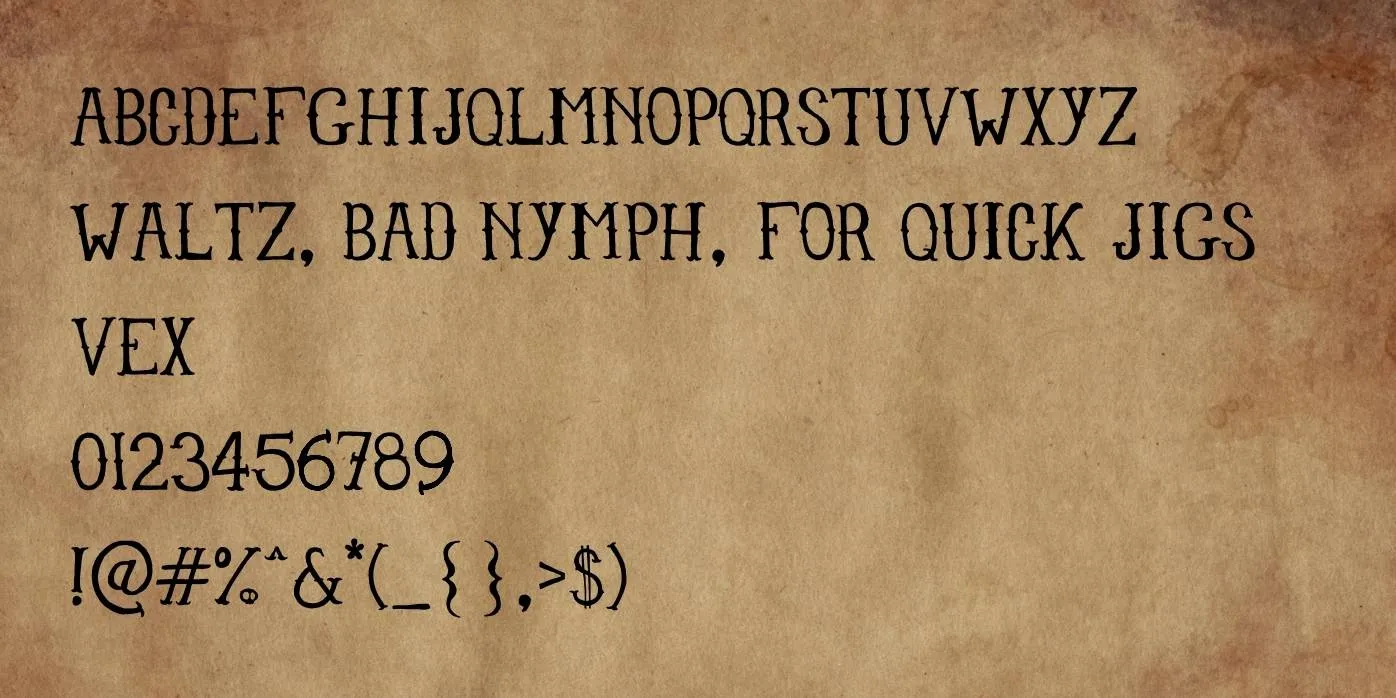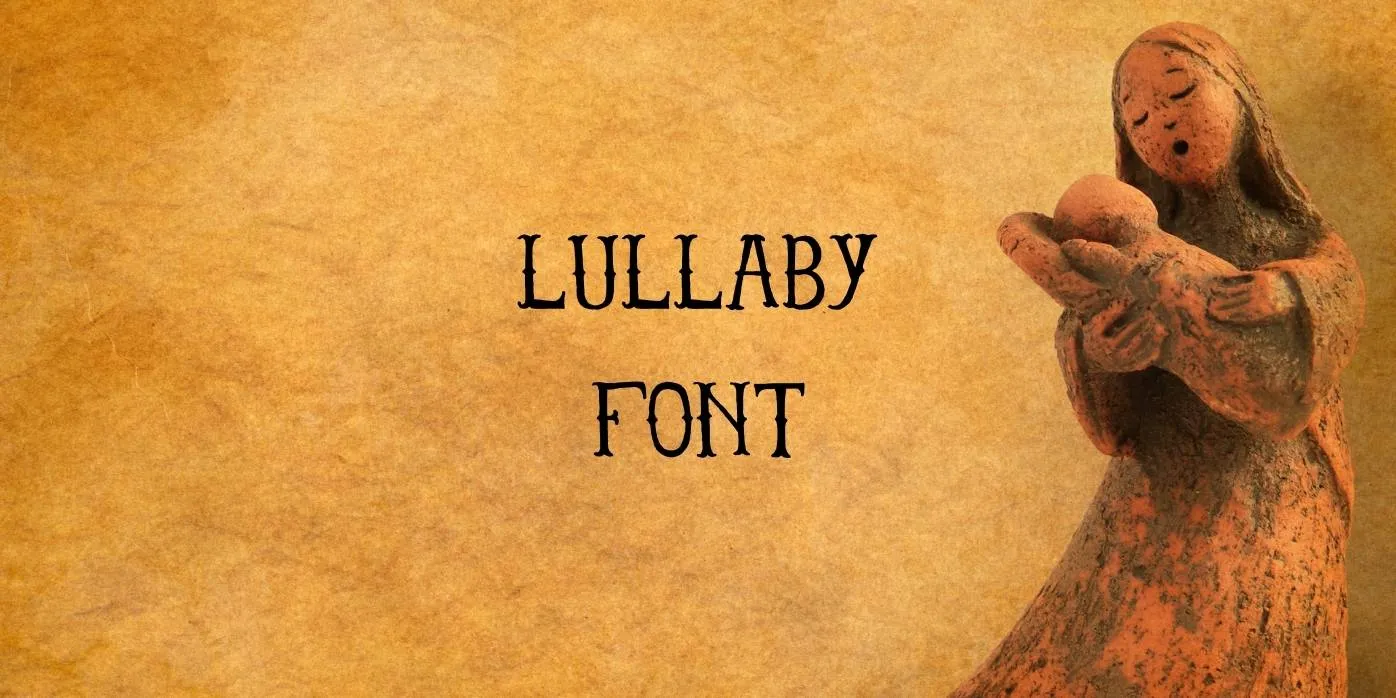
Lullaby Font
Lullaby font is a Retro typeface font designed by Gravual. This typeface contains many stylish glyphs and characters. This typeface is the very ideal and necessary font in the fonts market. majority of designers use this font in their design.
It has very bold strokes and sharp edges that look so astonishing in any design. If you are looking for a font that is very aesthetic and simple so this font is best for you. This typeface has a large number of language support. The lullaby typeface has many features that give a very classy and unique touch to your design.
This font is always considered a professional font in fonts market.